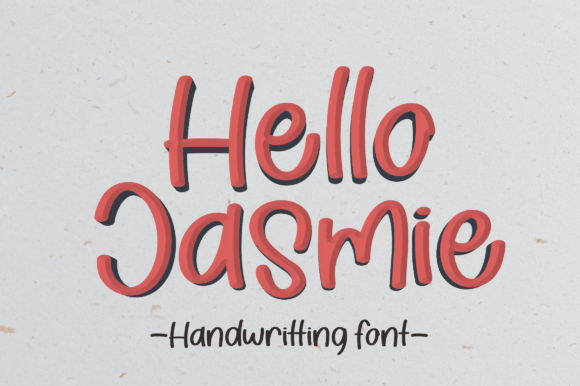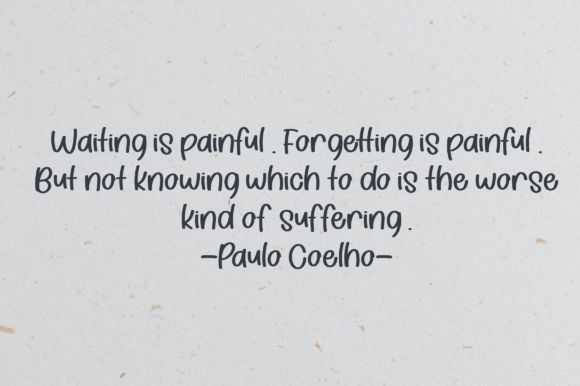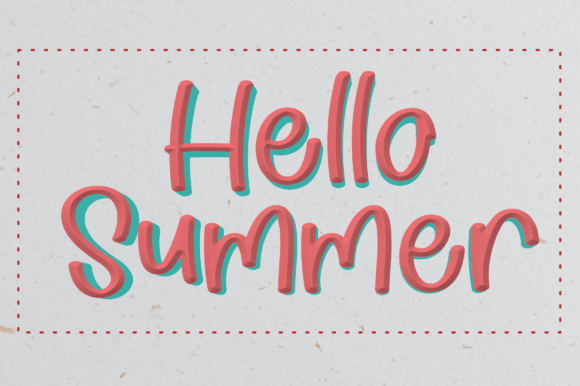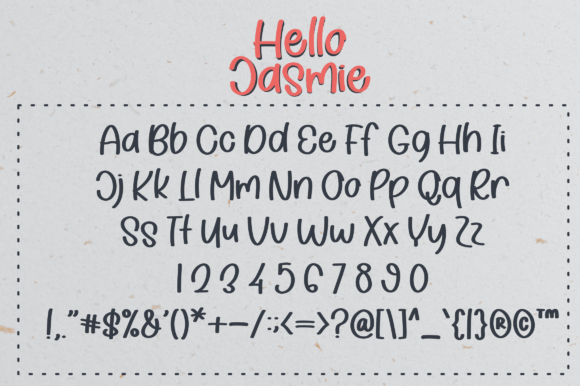
Hello Jasmie Font
About Hello Jasmie Font
**Hello Jasmine** is a font that radiates fun and freshness, designed with a modern and whimsical style that immerses your designs into a playful and vibrant world. Its lively and upbeat character makes it an ideal choice for projects that require a touch of youthful energy and creativity.
**Fun and Fresh Vibes**: **Hello Jasmine** exudes fun and freshness, creating an instant lively vibe in any design. Its playful letterforms and whimsical elements add a sense of excitement and joy, making it perfect for projects that demand a cheerful and youthful aesthetic. The font’s fun and fresh vibes infuse the text with energy and positivity, ensuring it looks vibrant and engaging.
**Modern Whimsy**: Combining modernity with whimsy, **Hello Jasmine** strikes the perfect balance between contemporary style and playful charm. Its sleek and stylish design elements harmonize with its playful undertones, creating a delightful and visually appealing font. The font’s modern whimsy adds a touch of sophistication to the playful world it creates, ensuring it resonates with both creativity and elegance.
**Immersive Playfulness**: **Hello Jasmine** immerses your designs into a playful world, where imagination knows no bounds. Its lively and upbeat character invites viewers to explore and engage with the content, creating an immersive experience. The font’s playful spirit encourages a sense of playfulness and creativity, making it suitable for projects that aim to captivate and inspire.
**Versatile Creative Applications**: **Hello Jasmine** is versatile and adaptable to a variety of creative applications. Whether used for branding, packaging, social media posts, greeting cards, or playful illustrations, the font seamlessly integrates into different contexts. Its fun and fresh vibes enhance the visual appeal of diverse projects, adding a touch of whimsy and creativity to the content.
In summary, **Hello Jasmine** is more than just a font; it’s an invitation to a playful and vibrant world. Its fun and fresh vibes, combined with its modern whimsy, make it a valuable asset for a variety of creative projects. By incorporating **Hello Jasmine** into your designs, you can create immersive and engaging compositions, ensuring your content resonates with joy and creativity. Let **Hello Jasmine** be the spirited and whimsical companion that adds a touch of playfulness to your creative endeavors, making them truly vibrant and memorable.